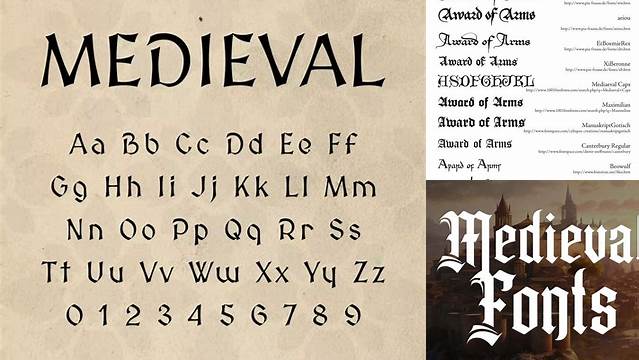
Medieval Fonts: Names & Styles For A Historic Look
Hey guys! Ever wondered about those cool, old-timey fonts you see in movies, games, and books that transport you straight back to the medieval era? Well, you’re in the right place! We're diving deep into the world of medieval fonts, exploring their names, styles, and how to use them to give your projects that awesome historical vibe. Think knights, castles, illuminated manuscripts – you get the picture! So, let’s get this medieval font party started!
Understanding Medieval Font Styles
So, what exactly makes a font “medieval”? Well, it’s not just about looking old! Medieval font styles are actually rooted in the handwriting and lettering techniques used centuries ago. We're talking about the kind of fonts that evoke images of quill pens scratching away on parchment. Imagine monks diligently copying texts in monasteries – that’s the spirit we’re channeling here! These fonts often feature elaborate strokes, dramatic thick-to-thin transitions, and a certain handcrafted feel that screams history. Understanding the nuances of these styles helps you pick the perfect font for your project, whether it's a fantasy novel cover or a historical website design. The key takeaway here is that medieval fonts aren't just fonts; they're a visual connection to the past, each curve and flourish telling a story of craftsmanship and tradition. And hey, who wouldn't want a font that makes their work look like it came straight out of a medieval library? That's the magic of these fonts, guys – they blend history and art in a way that's both timeless and totally cool. So, let's keep exploring and uncover the amazing variety within this fascinating font family.
Popular Medieval Font Names
Okay, let's dive into the really fun part: the popular medieval font names! You might have heard of some, like Gothic or Blackletter, but there’s a whole kingdom of awesome fonts waiting to be discovered. These aren’t just names; each one carries its own personality and history. For instance, Fraktur is a bold, dramatic style often associated with German manuscripts, while Uncial has a more rounded, elegant feel, reminiscent of early Christian texts. Then there's Carolingian Minuscule, a clear and readable script that was revolutionary in its time. Knowing these names helps you communicate effectively with designers and fellow font enthusiasts. It's like having a secret language of typography! Plus, when you know the name, you can dig deeper into the font’s history and see how it was used in the past. This isn't just about choosing a font; it's about choosing a piece of history to bring your project to life. So, buckle up, font fanatics, because we're about to explore the fascinating world of medieval font names and the stories they hold. Each font has a tale to tell, and we're here to listen and learn. Trust me, the more you know, the cooler your projects will look!
Gothic Font Styles in Detail
Let's zoom in on one of the biggest players in the medieval font game: Gothic font styles. When you think “medieval,” chances are you’re picturing something Gothic – those dark, dramatic, and highly ornamented letters. Gothic fonts, also known as Blackletter, were super popular in Western Europe from the 12th century all the way to the 17th century. They're characterized by their thick strokes, sharp angles, and intricate details that make them instantly recognizable. Imagine the impressive calligraphy in illuminated manuscripts or the bold lettering on medieval charters – that’s the essence of Gothic. But Gothic isn’t just one style; it’s a whole family! There's Textura, with its dense, blocky appearance; Rotunda, a slightly more rounded and legible version; and Fraktur, known for its fractured, angular forms. Each Gothic style has its own vibe and historical context, making them versatile for different projects. Whether you're designing a poster for a metal band or a historical game, understanding the nuances of Gothic fonts is key. These fonts aren't just about looking old; they're about conveying power, tradition, and a touch of mystery. So, let's explore the dark and dramatic world of Gothic fonts and see how they can bring a touch of medieval magic to your designs. It's time to embrace the bold and beautiful, guys!
Blackletter Font Variations
Alright, let's delve deeper into the world of Blackletter font variations. We’ve talked about Gothic fonts, and Blackletter is essentially its cool cousin. It’s a broad category that includes a bunch of different styles, all sharing that distinctive dark, heavy, and angular look. Think of it as the family tree of medieval fonts, with each branch representing a unique variation. You've got Textura, which is super formal and almost impossible to read for modern eyes at small sizes. Then there's Schwabacher, a bit more flowing and rounded, and Fraktur, with its characteristic broken strokes and ornate flourishes. Each style was used in different regions and for different purposes, so understanding their nuances can really elevate your design game. For example, if you're going for a serious, historical vibe, Textura might be your go-to. If you want something a little more approachable, Schwabacher could be the answer. Blackletter fonts are powerful, they're dramatic, and they command attention. But they can also be tricky to use – too much, and your design might look cluttered or overwhelming. But when used right, they can add an unmatched touch of authenticity and historical flair. So, let's explore these variations, understand their strengths, and discover how to wield the power of Blackletter fonts in your projects. It's all about finding the perfect balance and letting these iconic fonts shine!
Fraktur Font Characteristics
Let’s zoom in on Fraktur font characteristics, one of the most recognizable and distinctive members of the Blackletter family. If you've ever seen a font with those sharp, broken strokes and elaborate swirls, chances are it was Fraktur. This font has a serious personality – bold, dramatic, and undeniably eye-catching. It was super popular in Germany for centuries and often used for official documents and high-end printing. But what makes Fraktur so unique? Well, it’s all in the details. The letterforms are characterized by their fractured appearance, with sharp angles and delicate serifs that create a sense of both strength and elegance. Imagine the precision and skill required to create these letters by hand – it’s truly an art form! Fraktur has a certain weight and presence that other fonts just can’t match. It's like the rockstar of the medieval font world. But, like any rockstar, it needs to be handled with care. Fraktur can be challenging to read in large blocks of text, so it's best used for headlines, titles, or short bursts of text. It's perfect for adding a touch of historical drama to your designs, whether you're working on a book cover, a poster, or a website. So, let's dive into the world of Fraktur, explore its unique charm, and see how it can add a touch of medieval magic to your creations. It's time to unleash the power of Fraktur, guys!
Uncial Font Style and History
Time to talk about Uncial Font Style and History. This one's a bit different from the dark and dramatic Gothic styles we've been exploring. Uncial is like the friendly, approachable member of the medieval font family. It's characterized by its rounded, flowing letterforms, which give it a more open and airy feel compared to the sharp angles of Blackletter. Uncial fonts were super popular in the early centuries AD, especially for religious texts and manuscripts. Think of the beautiful calligraphy in the Book of Kells – that's the kind of vibe we're talking about! The rounded shapes of Uncial letters were actually easier to write on parchment with a quill pen, which is one reason why it became so widespread. Uncial has a timeless elegance that makes it perfect for a variety of projects, from wedding invitations to historical websites. It's less intimidating than Gothic fonts but still carries a strong sense of history and tradition. Plus, it's generally more legible, making it a great choice for longer blocks of text. Whether you're looking for a font that's both beautiful and practical or want to add a touch of ancient sophistication to your designs, Uncial is definitely worth exploring. So, let's dive into the history and style of this fascinating font and see how it can bring a touch of classic charm to your work. It's time to embrace the elegance of Uncial, folks!
Carolingian Minuscule: A Readable Medieval Font
Let’s shine a spotlight on Carolingian Minuscule: A Readable Medieval Font. If you’re looking for a medieval font that’s actually, you know, readable, this is your champion. Carolingian Minuscule was a game-changer in the world of writing. Developed during the reign of Charlemagne in the 8th and 9th centuries, it was designed to create a standardized and legible script across the Carolingian Empire. Before this, handwriting styles varied wildly, making it difficult to read documents from different regions. Carolingian Minuscule changed all that. It's characterized by its clear, rounded letterforms and consistent letter spacing, making it much easier on the eyes than earlier scripts. Think of it as the font that brought order to the medieval chaos of handwriting! This font was so successful that it became the basis for many of the typefaces we use today. It’s a testament to the power of good design, even centuries later. Carolingian Minuscule is a fantastic choice for projects that need a touch of medieval flair without sacrificing readability. It's perfect for books, websites, or anything where you want to convey a sense of history and sophistication. So, if you're looking for a medieval font that won't leave your readers squinting, Carolingian Minuscule is definitely the way to go. It's a classic for a reason, guys!
Choosing the Right Medieval Font for Your Project
Okay, so you’re armed with knowledge about different medieval fonts, but how do you go about choosing the right medieval font for your project? It’s like picking the right sword for a knight – it depends on the quest! The first thing to consider is the overall tone and message you want to convey. Are you going for dark and dramatic, or elegant and refined? Gothic fonts, like Fraktur or Textura, are great for projects that need a strong, historical feel, like fantasy book covers or metal band logos. Uncial or Carolingian Minuscule, on the other hand, are better suited for projects that need a touch of classic elegance and readability, like wedding invitations or historical websites. Think about your target audience, too. Will they be able to easily read a complex Gothic font, or would a simpler style like Carolingian Minuscule be more appropriate? It's also crucial to consider the context in which the font will be used. A large, bold Gothic font might look fantastic as a headline but would be overwhelming in a paragraph of text. Remember, a font is more than just a visual element; it's a voice. It speaks to your audience and tells them something about your project. So, take your time, explore your options, and choose a font that truly reflects your message. It's all about finding the perfect match, folks!
Using Medieval Fonts in Graphic Design
Let's talk about using medieval fonts in graphic design. These fonts can add a serious dose of character and historical flair to your projects, but they need to be used wisely. Think of them as powerful spices – a little goes a long way! The key is to balance the dramatic nature of medieval fonts with other design elements. You don't want your design to look like it was ripped straight out of the 14th century (unless that's the goal, of course!). Start by using medieval fonts sparingly, mainly for headlines, titles, or logos. They can be overwhelming in large blocks of text, so pair them with a more legible font for body copy. Consider the color palette, too. Dark colors like black, deep red, or gold often complement medieval fonts, enhancing their dramatic effect. But don't be afraid to experiment with brighter colors for a more modern twist. Think about the overall composition and layout. Medieval fonts often have intricate details, so give them plenty of space to breathe. Avoid cluttering your design with too many elements. And most importantly, consider the context of your project. Is it a fantasy novel, a historical documentary, or a heavy metal album cover? The font should match the tone and subject matter. Using medieval fonts in graphic design is all about creating a visual story. It's about blending history with modern aesthetics and making a statement that's both timeless and eye-catching. So, let's get creative and see how these amazing fonts can elevate your designs!